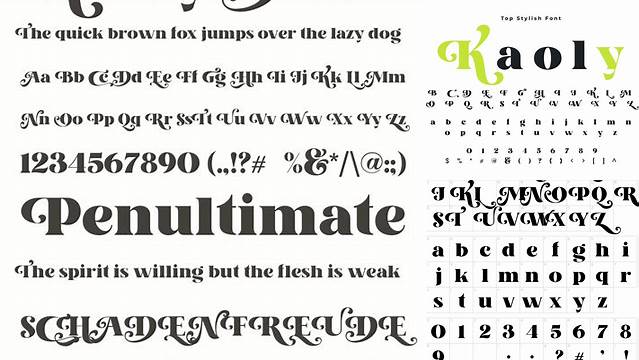
Hey guys! Are you on the hunt for a fresh, stylish font that can take your designs to the next level? Well, look no further because today, we're diving deep into the world of Kaoly font, a fantastic typeface that's perfect for a wide range of projects. And the best part? You can get a free download! Let's get right to it and discover everything you need to know about Kaoly, including its unique features, where to download it, and how to use it to its full potential. Whether you're a seasoned designer, a budding creative, or just someone who loves playing around with fonts, this guide is for you. We'll cover everything from its distinctive style and versatile applications to where you can safely and legally grab your own copy. So, buckle up, and let's explore the wonderful world of the Kaoly font!
What is Kaoly Font and Why Should You Use It?
First things first, what exactly is Kaoly font? Simply put, it's a beautifully designed typeface that brings a touch of elegance and modernity to any project. It often boasts clean lines, a sophisticated aesthetic, and a readability that makes it ideal for both headlines and body text. The Kaoly font family typically includes various weights and styles, giving you plenty of options to play with. Think of it as your go-to choice when you want to add a touch of class and personality to your designs. But why should you use Kaoly? Well, the answer is simple: it's incredibly versatile. This font shines in a variety of applications, from branding and logo design to website headers, social media graphics, and even print materials. It's a fantastic way to capture attention and make a lasting impression. The versatility of Kaoly is truly amazing! The typeface complements various design projects, enhancing their appeal and making them more eye-catching. Because of its readability, Kaoly is very effective in conveying your intended message. Many designers select this font because it gives a unique, modern, and elegant look to any design. The use of Kaoly can give your brand or project a professional look.
Using Kaoly Font in Your Design Projects
Alright, you've got your Kaoly font downloaded, and you're ready to get creative! But how do you actually use it in your design projects? The beauty of Kaoly is that it's incredibly versatile, making it perfect for various applications. Let's explore some ways you can incorporate this stylish typeface into your work. Kaoly is an excellent choice for creating stunning logos and branding materials. Its clean lines and modern aesthetic make it a perfect fit for conveying a sense of professionalism and sophistication. Use it for your company name, tagline, or even in the body text of your brand guidelines. Create eye-catching headlines and titles. The Kaoly font can be used in designing website headers, blog posts, and social media graphics, drawing readers' attention and making your content more engaging. Kaoly is also perfect for designing social media graphics. Crafting compelling social media posts with this font can create a cohesive and visually appealing brand identity. Consider using it for quotes, captions, or even the main text of your images. Its clean and elegant style will make your posts stand out from the crowd. When designing print materials, this font can be used in creating business cards, flyers, brochures, and other marketing materials. Its versatility allows it to be used in headlines, body text, and design elements, giving the designs a unified and professional look. When you have a font that has a variety of weights and styles, it becomes easier to experiment with different design aspects, like adding emphasis to a particular text. Whether it's in a logo, website, or print material, the Kaoly font allows you to easily and effectively convey your intended message. Now you are well equipped with the knowledge of using the font!
Tips and Tricks for Maximizing the Kaoly Font
Let's dive into some tips and tricks to help you truly master the Kaoly font and make your designs shine. First, experiment with different weights and styles. Kaoly often comes in a variety of weights, from light to bold, as well as different styles like italic. Play around with these variations to find the perfect look for your project. This is a great way to add emphasis and visual interest to your designs. Another important tip is to pay close attention to kerning and spacing. Kerning is the space between individual letters, while spacing refers to the overall space between lines of text. Adjusting these elements can significantly impact the readability and visual appeal of your text. Proper kerning ensures that letters flow smoothly together, while appropriate spacing prevents your text from feeling cramped. Combining the Kaoly font with other fonts is an excellent strategy to create dynamic and visually appealing designs. If your design involves a large amount of text, you can pair Kaoly with a font that is more suited for body text. This will ensure your project looks both stylish and readable. Choosing the right background and color palettes can dramatically impact how your font appears. Kaoly often works well against simple backgrounds, and choosing colors that complement the font's style can create a harmonious design. So, consider how your background will influence the overall look of the font. Also, make sure to test your designs across different devices and platforms. To ensure your designs look great on all devices, check how your text looks on various screen sizes and devices. This will help you identify and fix any design issues. By following these tips, you can be sure that the Kaoly font will work effectively in all of your designs.
Conclusion: Embrace the Kaoly Font for Stunning Designs
So there you have it, guys! You now have a complete guide to the Kaoly font: its features, where to download it safely, and how to use it to create amazing designs. From its elegant style to its versatility, Kaoly is a fantastic choice for anyone looking to elevate their projects. Don't hesitate to download it and start playing around with it. Remember to always download fonts from safe and legal sources. Whether you're designing a logo, creating social media graphics, or working on a website, this font can help you achieve a professional and eye-catching look. Happy designing! Now go forth and unleash your creativity with the Kaoly font! Remember to follow the tips we've provided and explore all the possibilities this amazing font has to offer. With the right approach, your designs will surely grab the attention of your target audience. The sky's the limit, so get out there and create something incredible! Keep experimenting with the font, as you discover more about its features and possibilities. Let the Kaoly font become your secret weapon in creating unique and visually appealing designs.